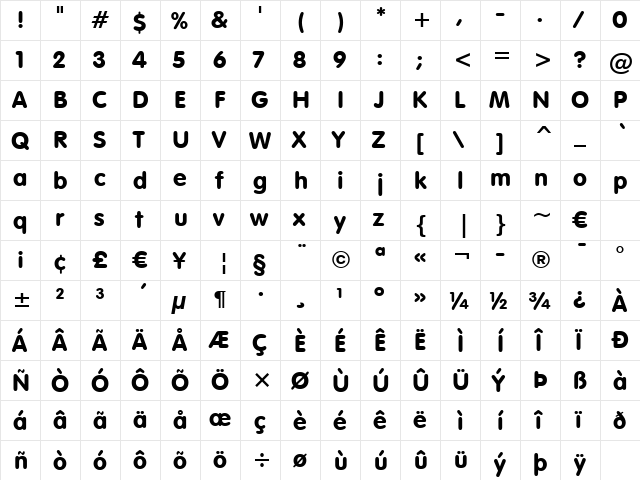
font231 Regular Font Preview
font231 Regular
font231 Regular Font Details
Design Context for font231 Typeface
font231 is a composed and adaptable typeface that performs quietly and consistently across a wide range of design contexts.